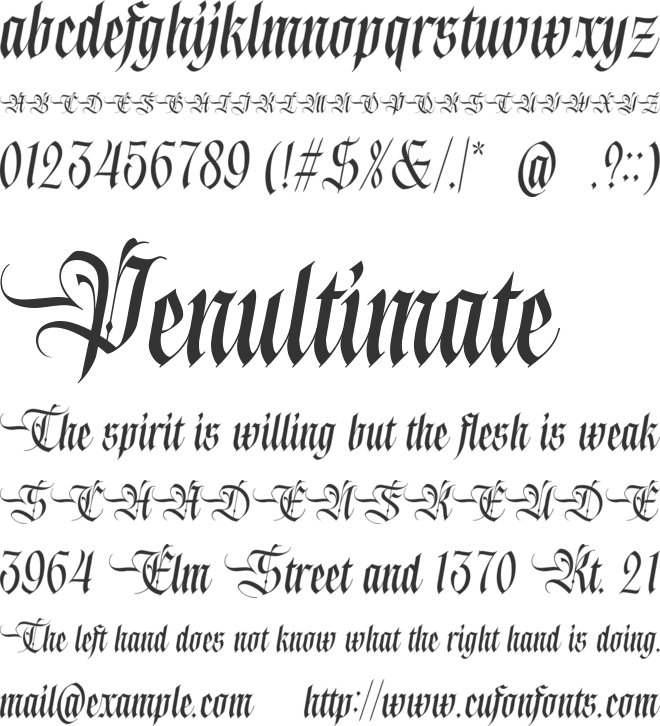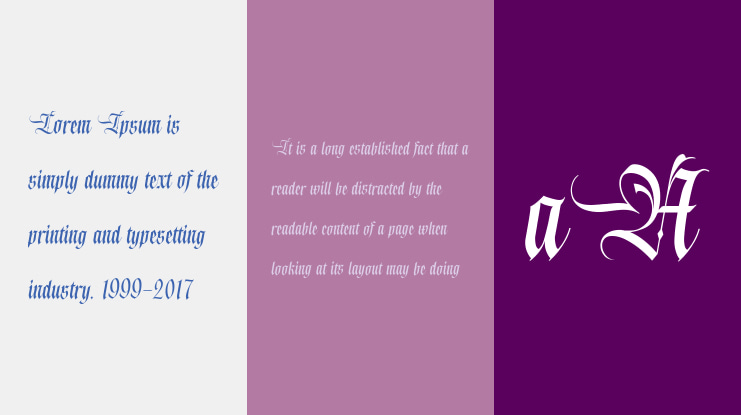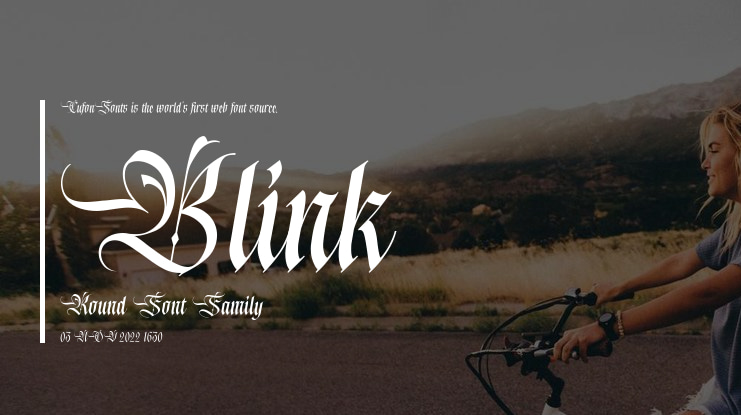
Blink Round Font
Blink Round Typeface: Fearless Blackletter with a Vicious Edge
Introducing Blink Round, a typeface that doesn't just speak—it roars. Forged in the spirit of rebellion and the artistry of the tattoo parlor, Blink Round is a blackletter script that bleeds attitude. This isn't your ordinary gothic font; it's a declaration, a statement piece designed for the bold and the unapologetic.
Every character is crafted with aggressive precision, featuring intricate swashes that twist and turn like thorny rose vines. The sharp, decisive strokes give your text a commanding presence, while the extensive set of stylistic alternates allows for complete creative control. Whether you're designing for a metal band, a streetwear brand, or a tattoo studio, Blink Round brings a raw, handcrafted authenticity that is simply unmatched.